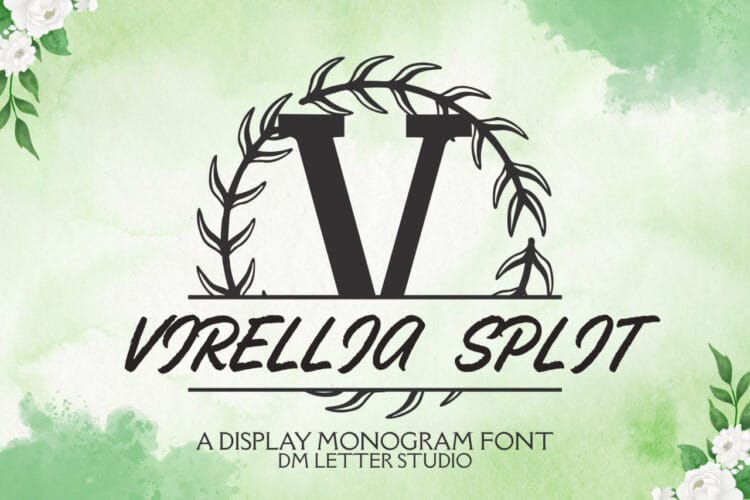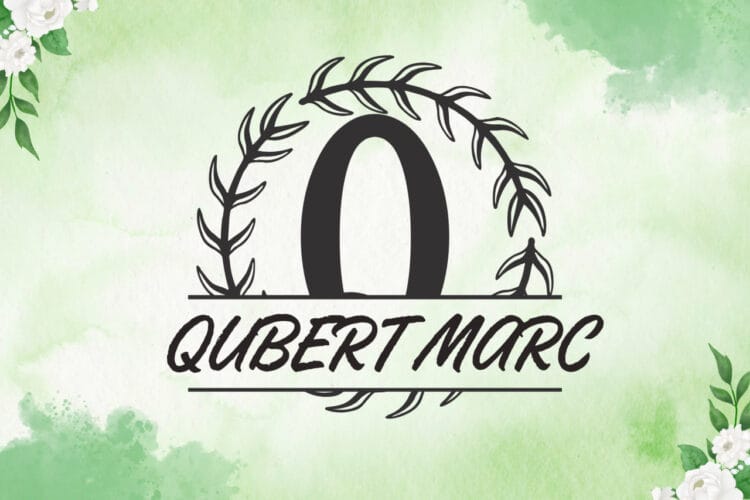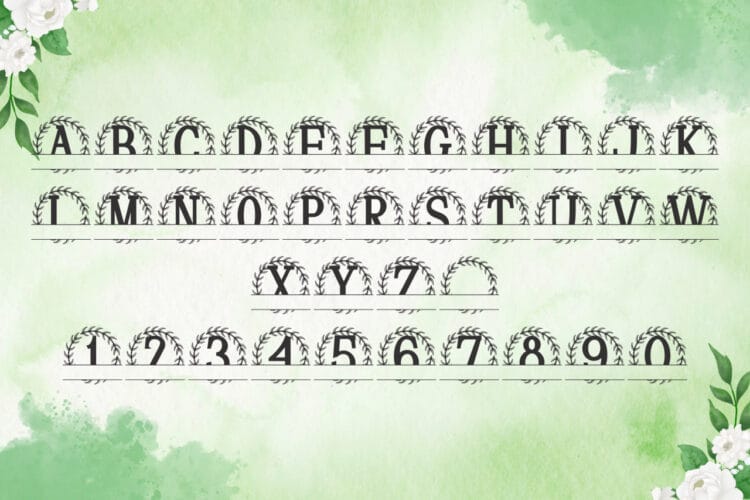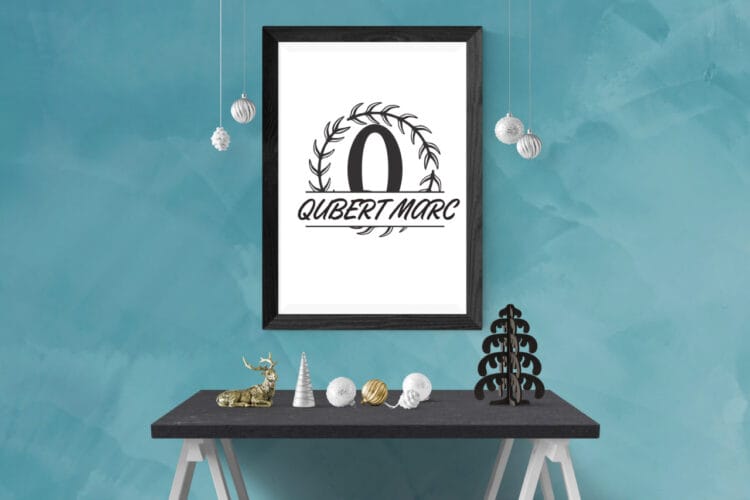
Meet Virellia Split, the Split Monogram Font
Virellia Split Monogram turns simple initials into refined botanical emblems with a clean center split for names, dates, or short words. The strokes are smooth and balanced, so letters stay clear at any size. Because counters remain open and curves stay clean, tiny tags print crisp while large signage looks polished and premium. Use it for wedding suites, boutique logos, keepsake gifts, wax seals, stationery, and luxury packaging. As a result, your designs feel personalized and gift-ready in minutes.
Fast layouts with Virellia Split
Start with a bold split initial, then place a name, family title, or date across the center bar. After that, add supporting text in a soft serif or a neat humanist sans. Because Virellia Split holds shape at small sizes, cards, cartons, acrylic signs, and tags print cleanly and cut smoothly. In addition, the proportions pair beautifully with wreath frames, oval borders, thin dividers, and subtle foliage accents, so full sets come together in minutes. Finally, save palette pairs like sage & ivory, emerald & cream, champagne & charcoal, or navy & pearl to repeat across your product line.
Creative uses and quick wins
Logo badges, shop marks, and product seals
Wedding monograms, place cards, and table numbers
Wax seals, ribbon tags, and keepsake boxes
Favor stickers, tissue labels, and thank-you cards
Split monogram initials built for quick personalization
Curves tuned for foil, letterpress, engraving, laser, vinyl, DTF, and sublimation
Design tips for Virellia Split Monogram
Keep the center text short so the initial stays the hero. Also, increase tracking slightly for names on small labels to improve readability. For extra depth, add a thin inner stroke or a soft shadow behind the monogram on light backgrounds. For texture, try linen stocks, vellum wraps, or pearl papers. Finally, export at 300 DPI for print and at 2× size for web so edges stay smooth everywhere.